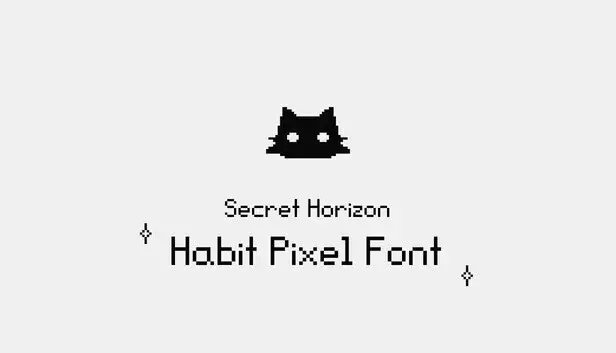
Secret Horizon Habit Pixel Font
Expanding Your Universe with Secret Horizon Habit Pixel Font
Secret Horizon Habit Pixel Font is an intriguing expansion for the original Secret Horizon game, designed specifically for PC players. This downloadable content (DLC) isn't just an add-on; it enriches the original experience with new visual themes, allowing players to customize their game's aesthetic in a distinctive pixel art style. As the original game set the stage for interstellar exploration, this expansion adds flair and personality, enhancing the overall atmosphere.
New Visual Dynamics Introduced
One of the standout features of the Habit Pixel Font DLC is its introduction of fresh pixel fonts, which dramatically transform how text appears within the game. These fonts carry a retro charm that appeals to those who enjoy classic gaming aesthetics, creating a nostalgic vibe. Each font is carefully crafted to meld seamlessly with the game’s stunning environments, ensuring that every line of dialogue and strategy note feels as engaging as it looks.